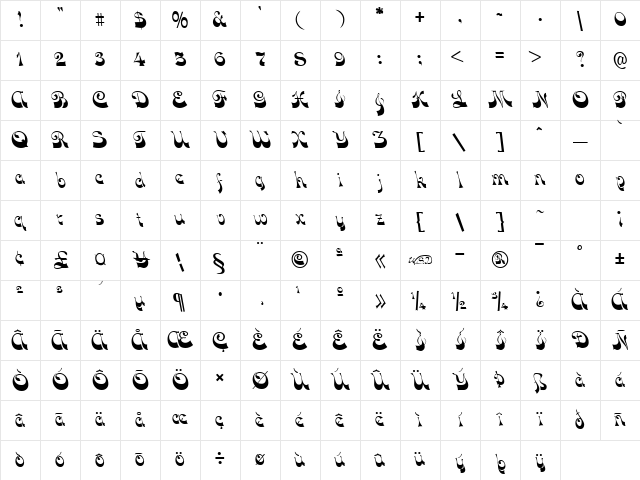
Funky Face has an approachable, lighthearted character - its loose, expressive forms are well-suited to children's content, casual branding, and fun-first design.
Font Pairing: Pairs well with a rounded or humanist sans for body copy, maintaining the friendly tone without relying on Funky Face to carry extended reading.
Pro Tip: Use Funky Face at larger display sizes where its expressive character can land. Pair with a clean, simple sans for body copy to maintain readability.